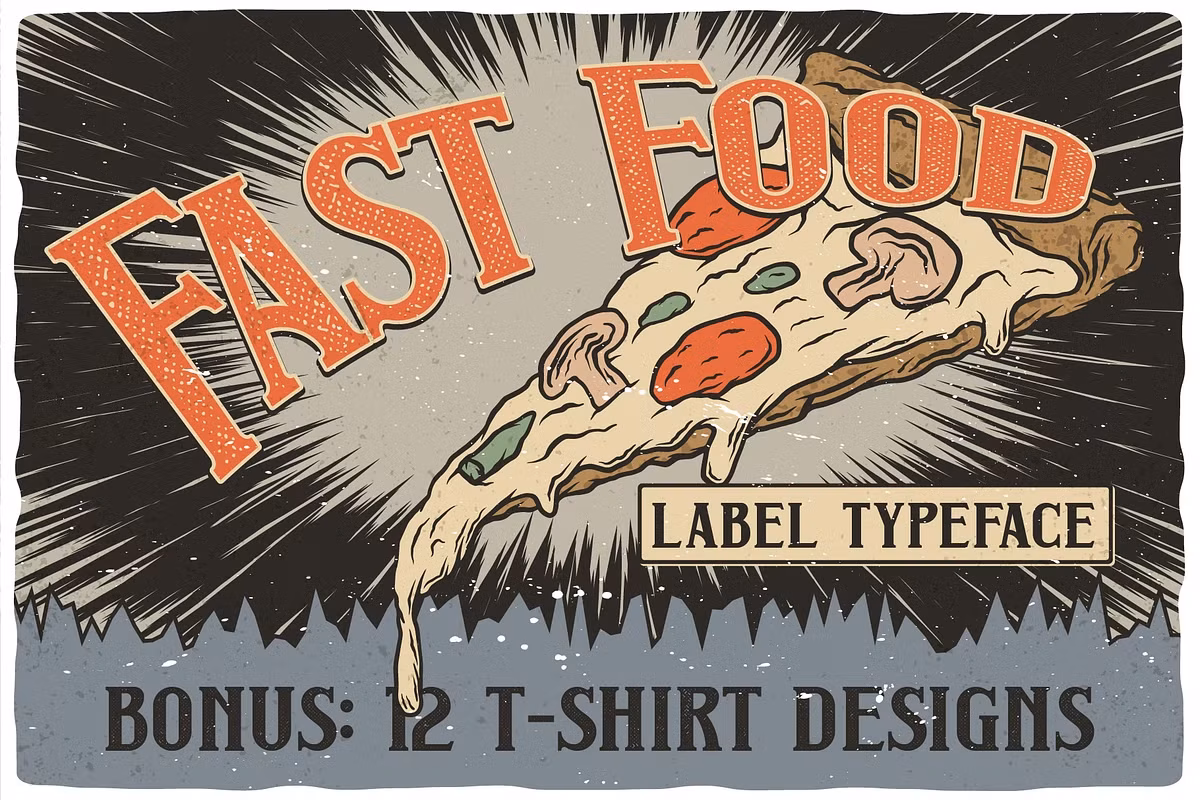
Fast Food Layered Typeface Free Download
Fast Food Layered Typeface Free Download is a bold, juicy, and eye-catching font designed to capture the fun and flavor of fast food culture. With its layered design—perfect for stacking colors, shadows, and textures—this typeface is ideal for restaurant branding, food truck graphics, menu designs, social media ads, and retro-inspired signage. It’s playful, high-energy, and built to make your message pop.
Using the Fast Food Layered Typeface Free Download gives you creative control and vibrant results. Whether you're designing a burger joint logo or promotional materials for a snack brand, this font adds a delicious dose of personality and style that grabs attention instantly.